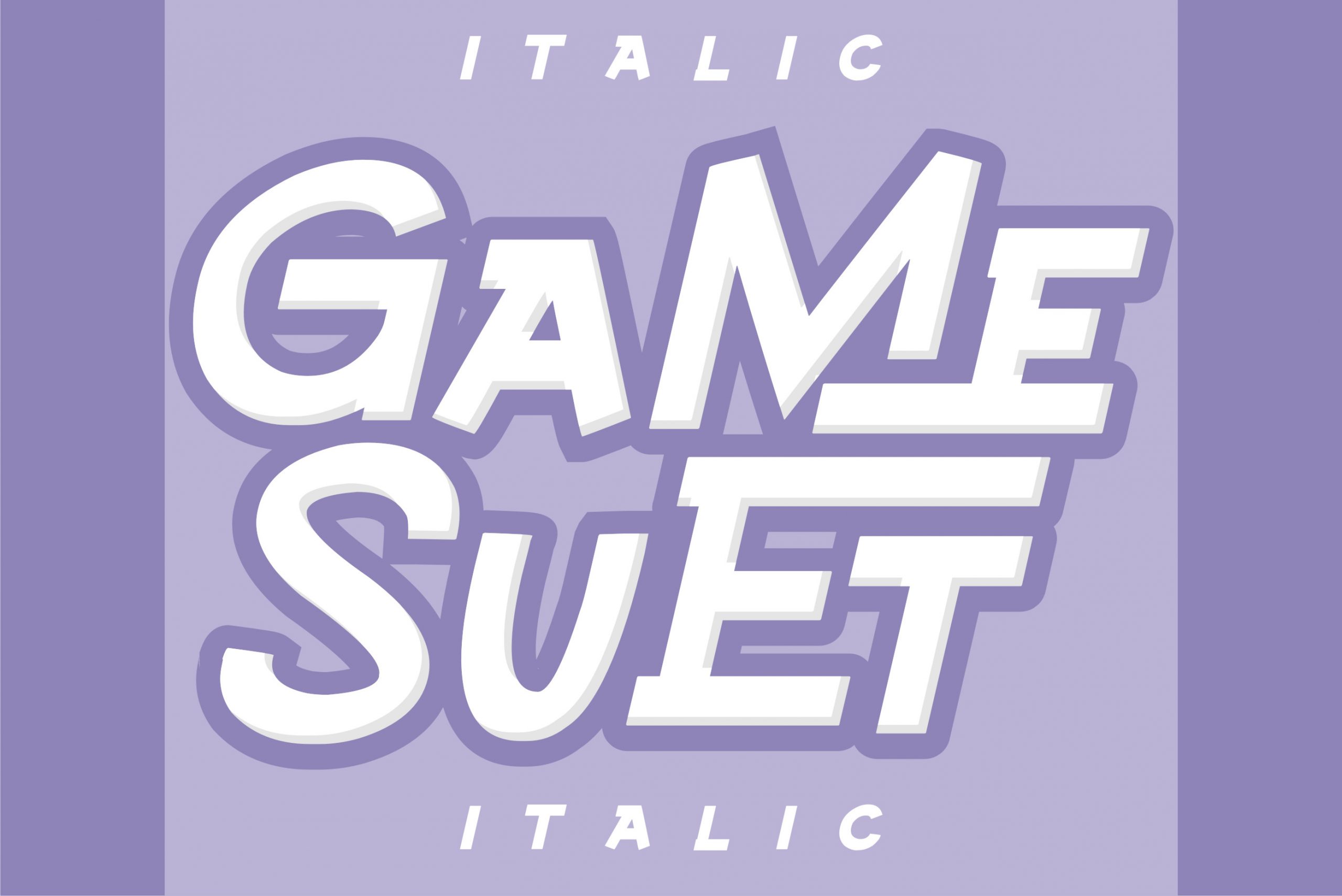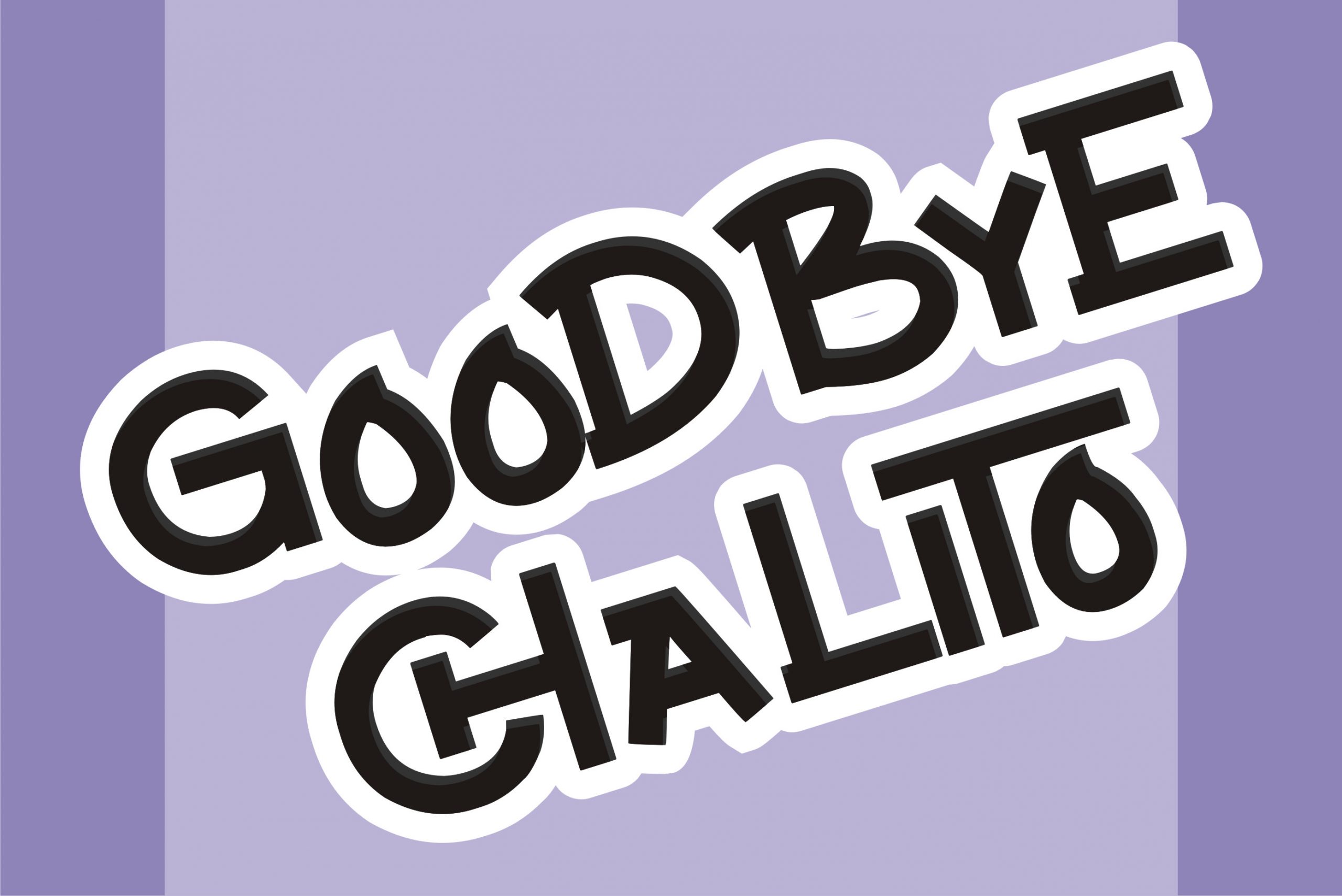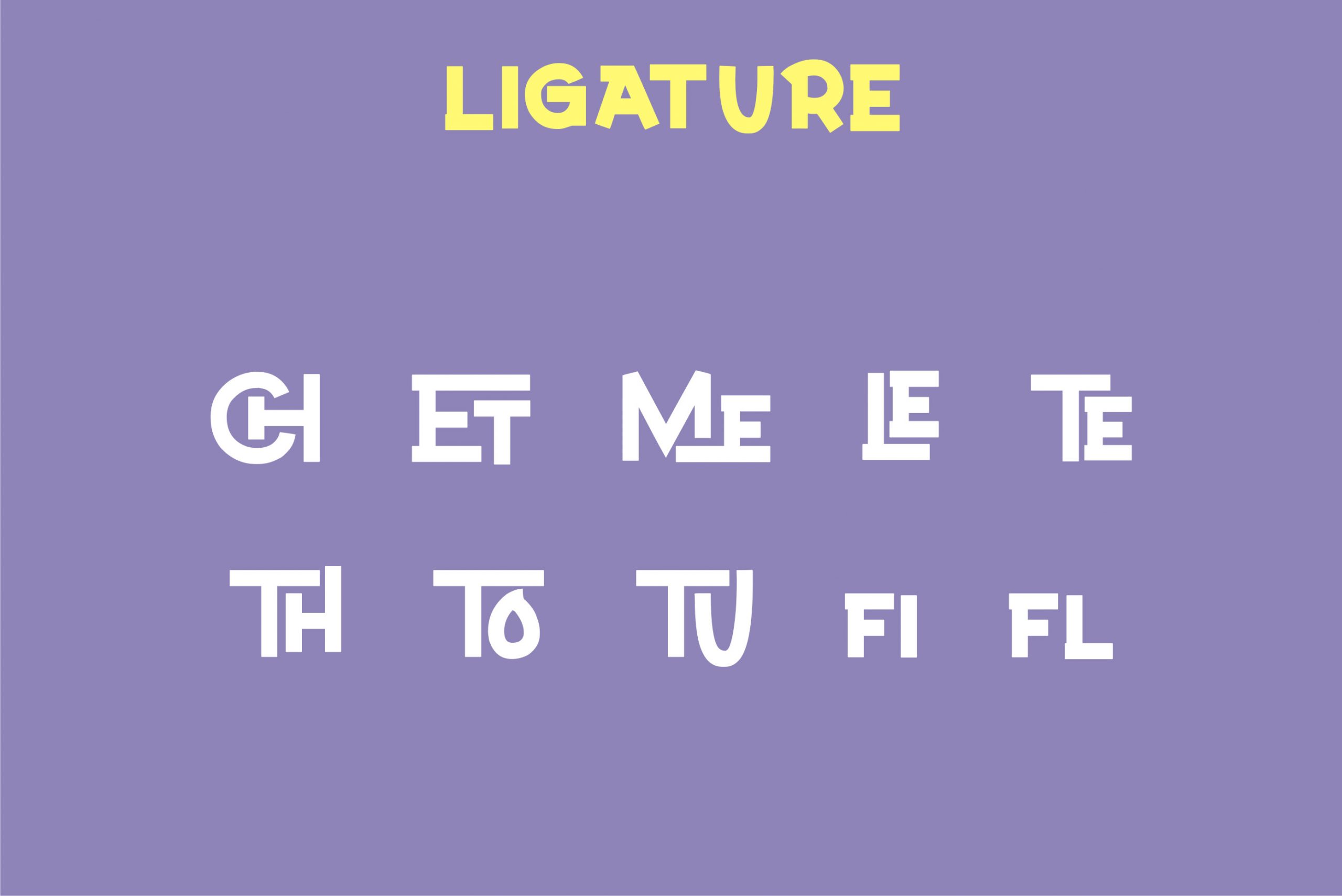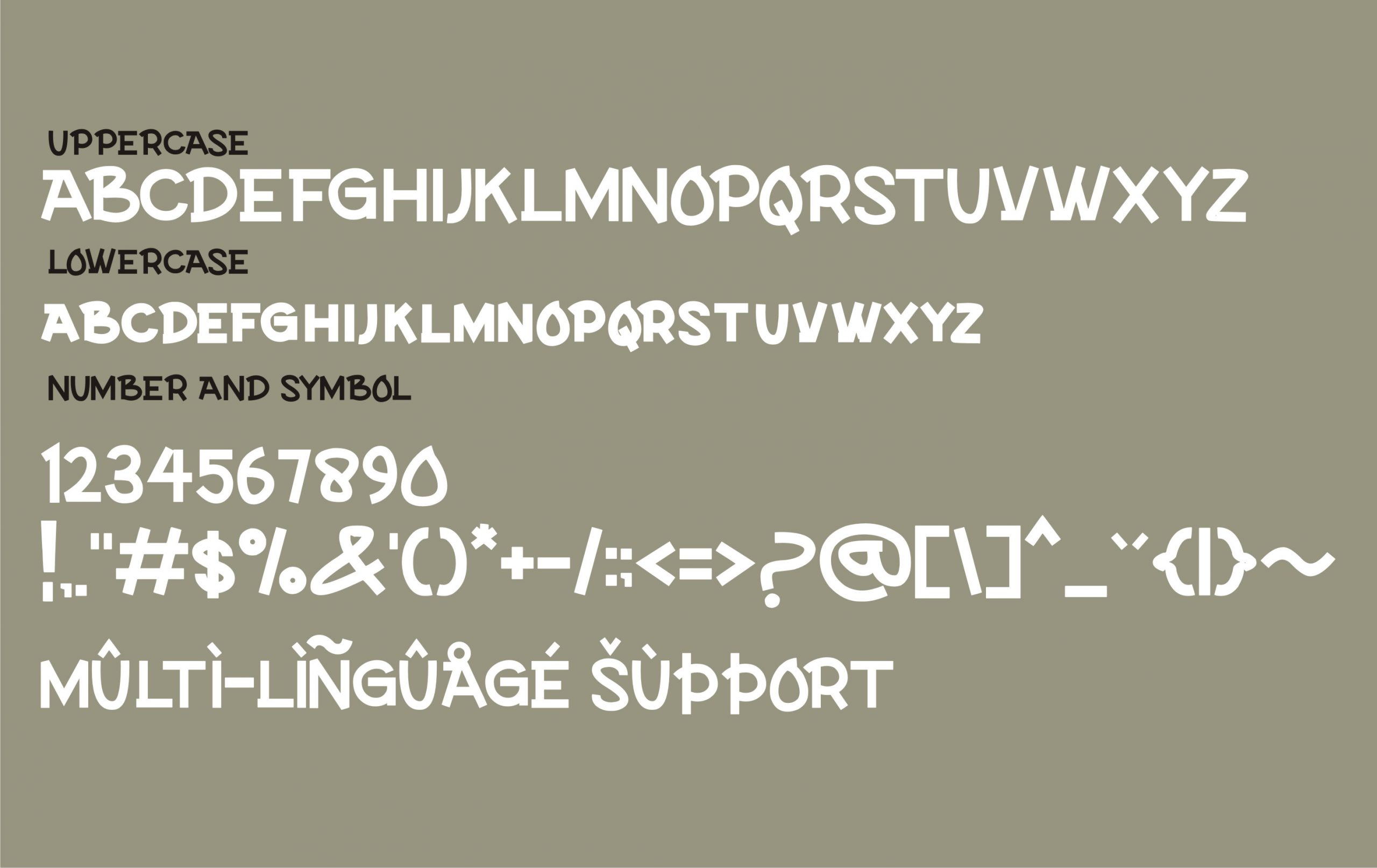
Game Suet Display Font
This is a cool and trendy looking display font. No matter the topic, this font will be an incredibly asset to your fonts’ library, as it has the potential to elevate any creation.